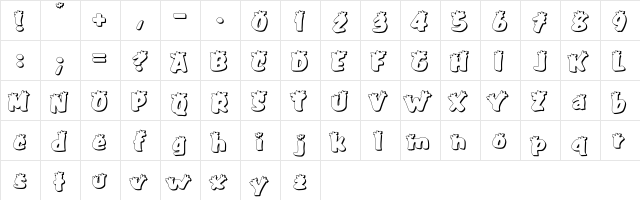
Pullstar-Holiday Holiday
Design Context for Pullstar-Holiday Typeface
Pullstar-Holiday is a composed and adaptable typeface that performs quietly and consistently across a wide range of design contexts.